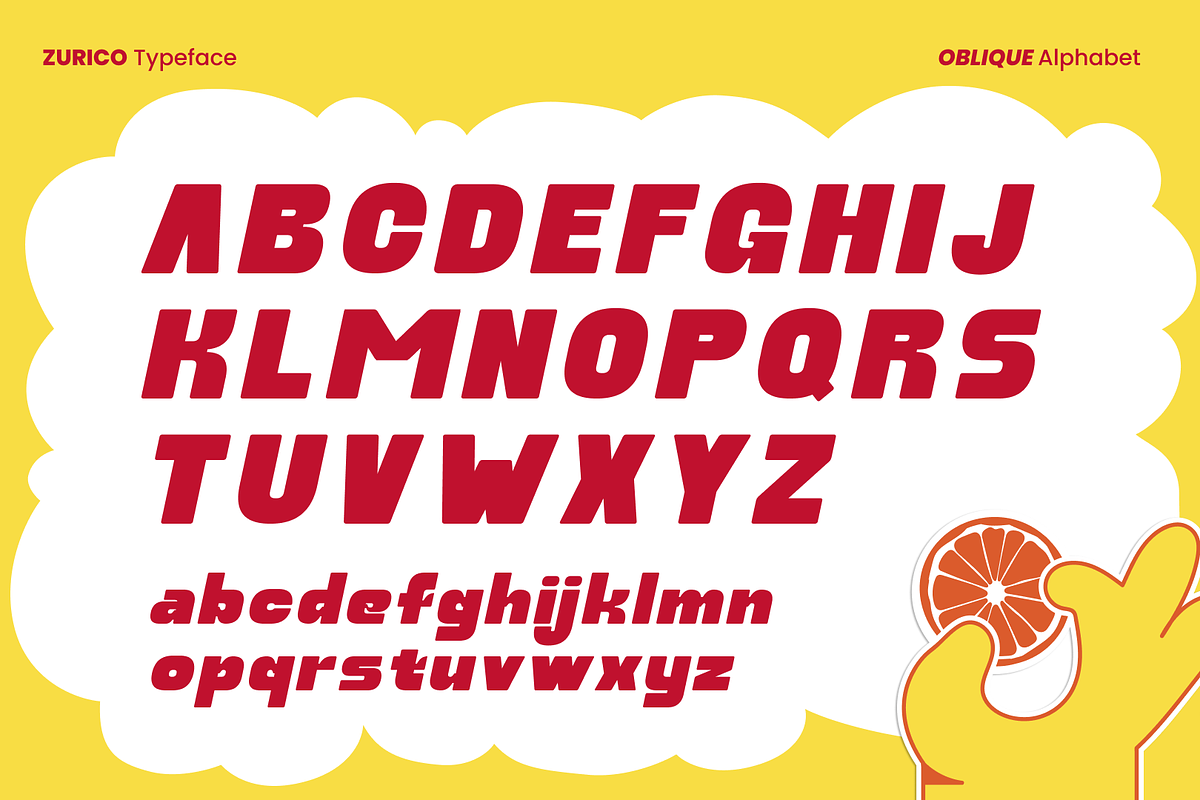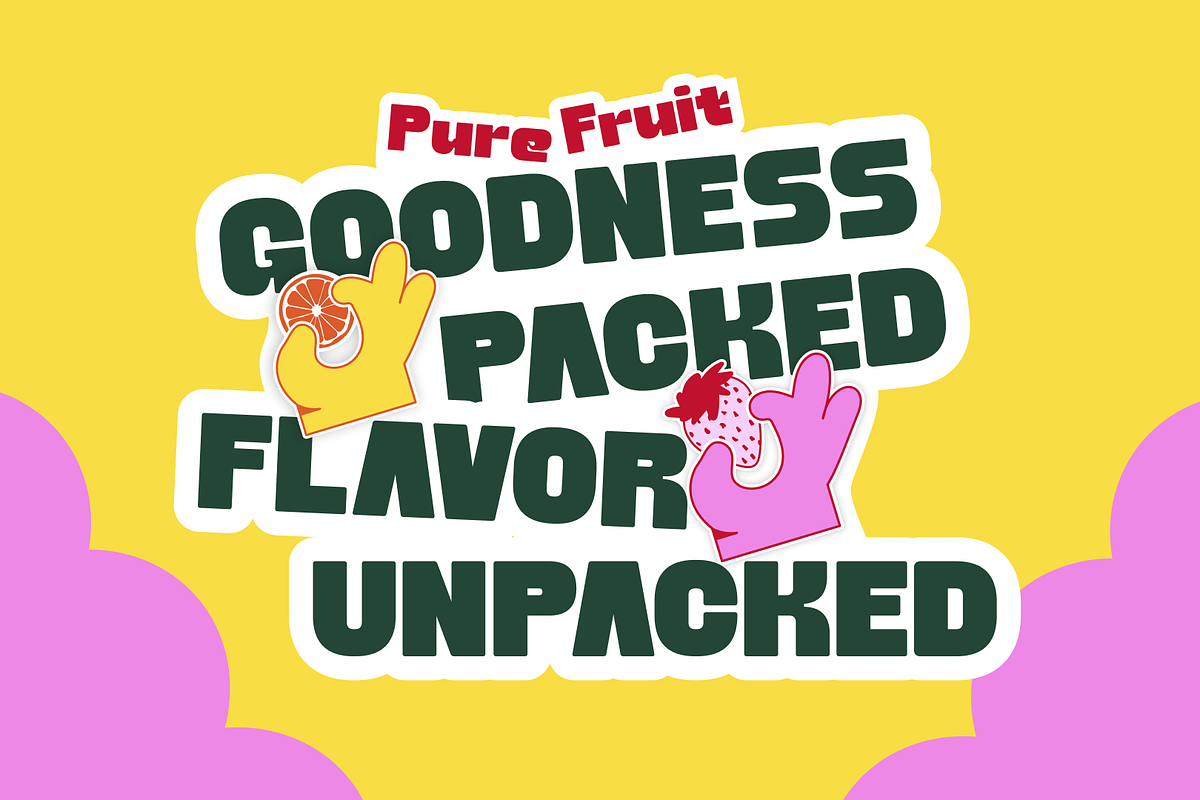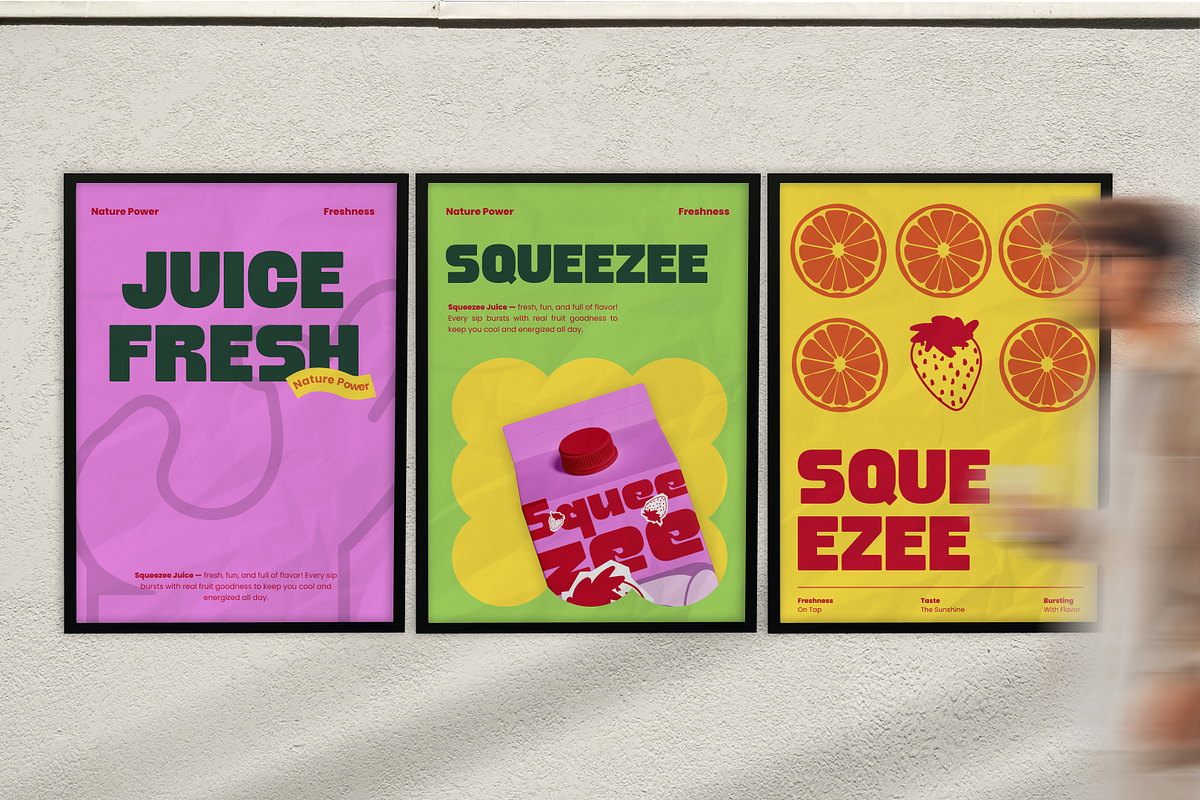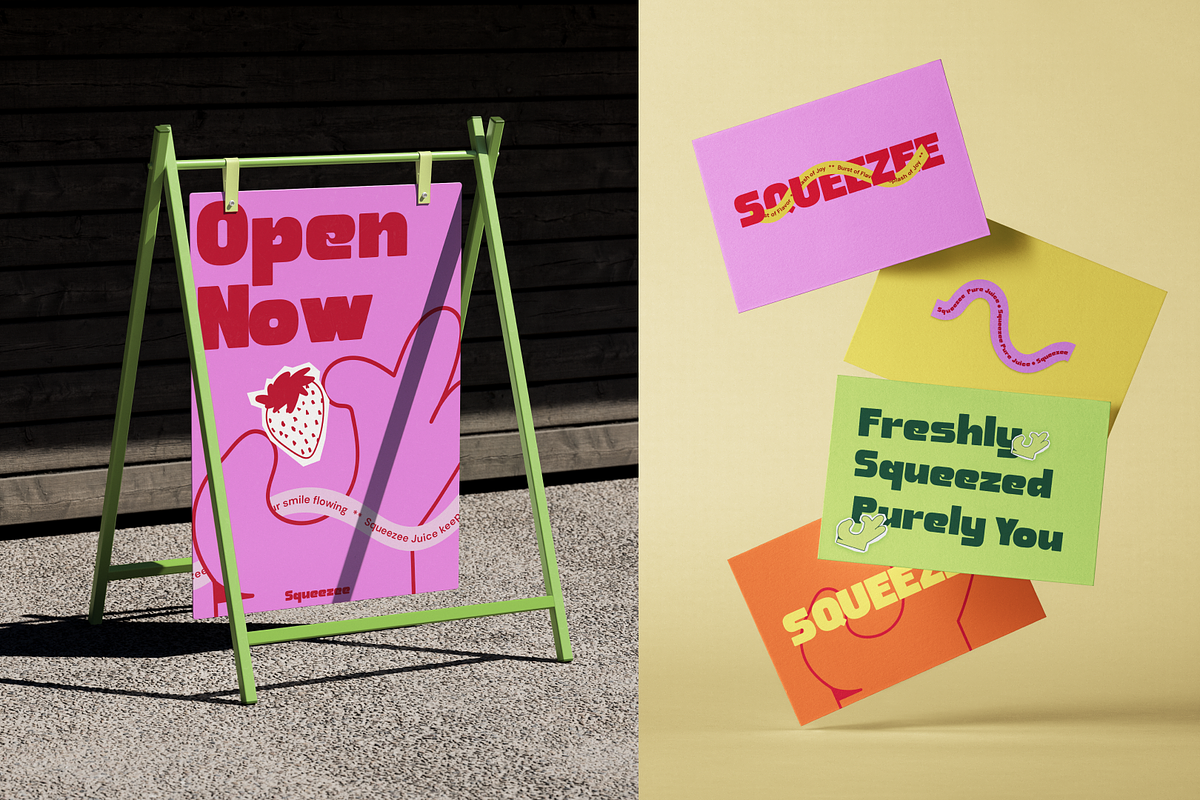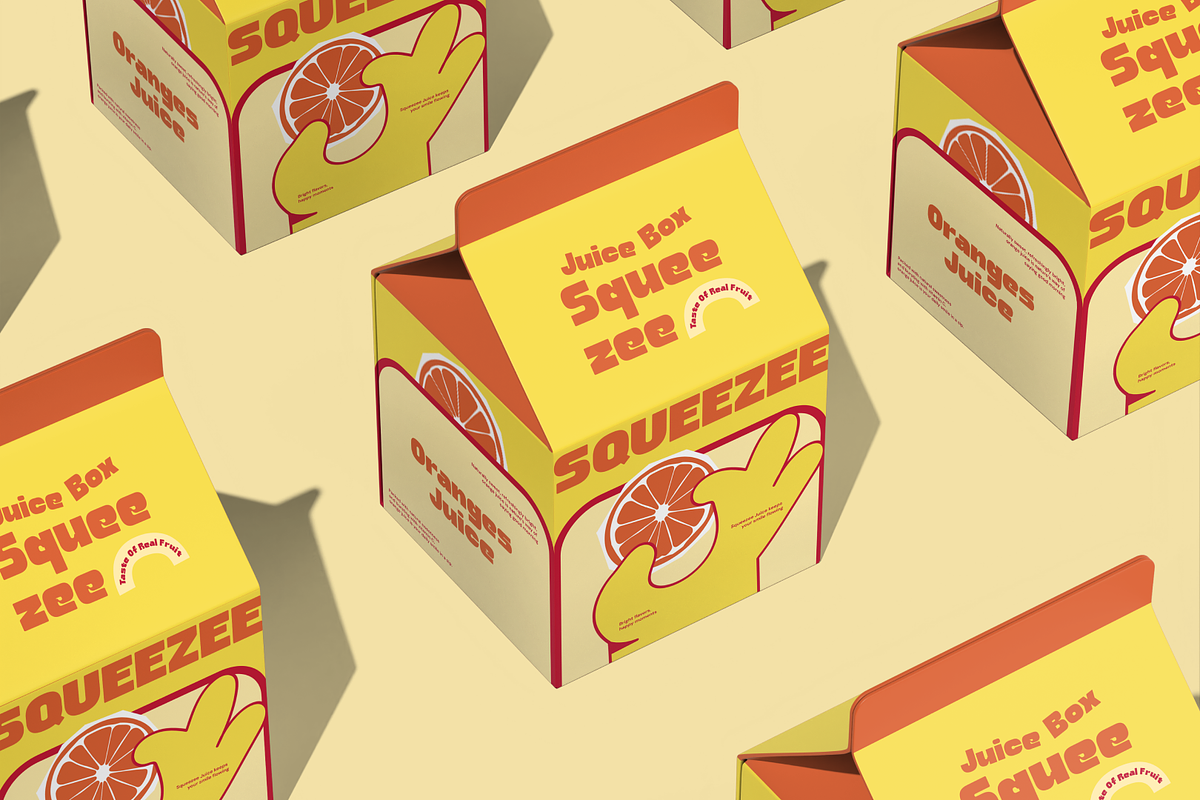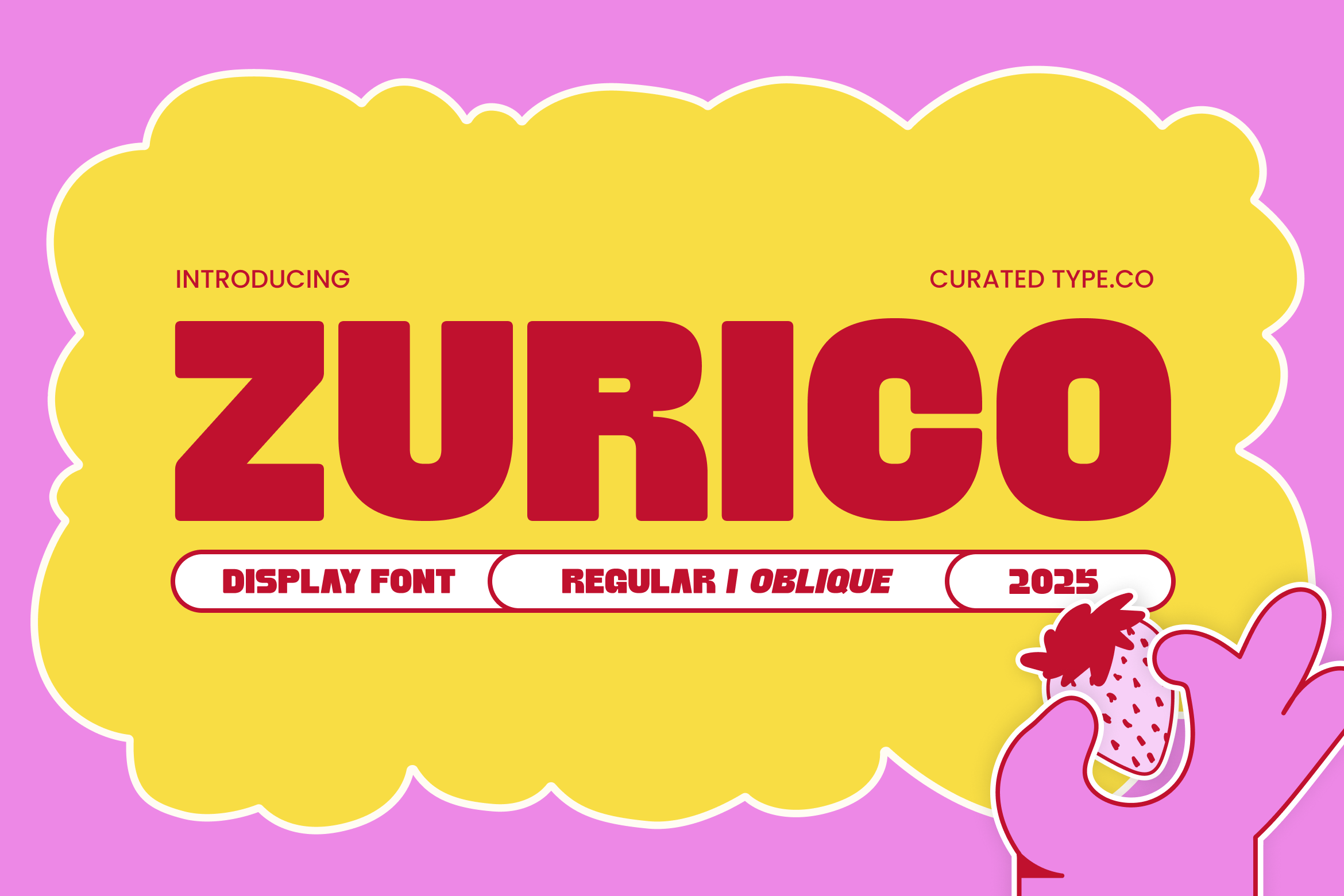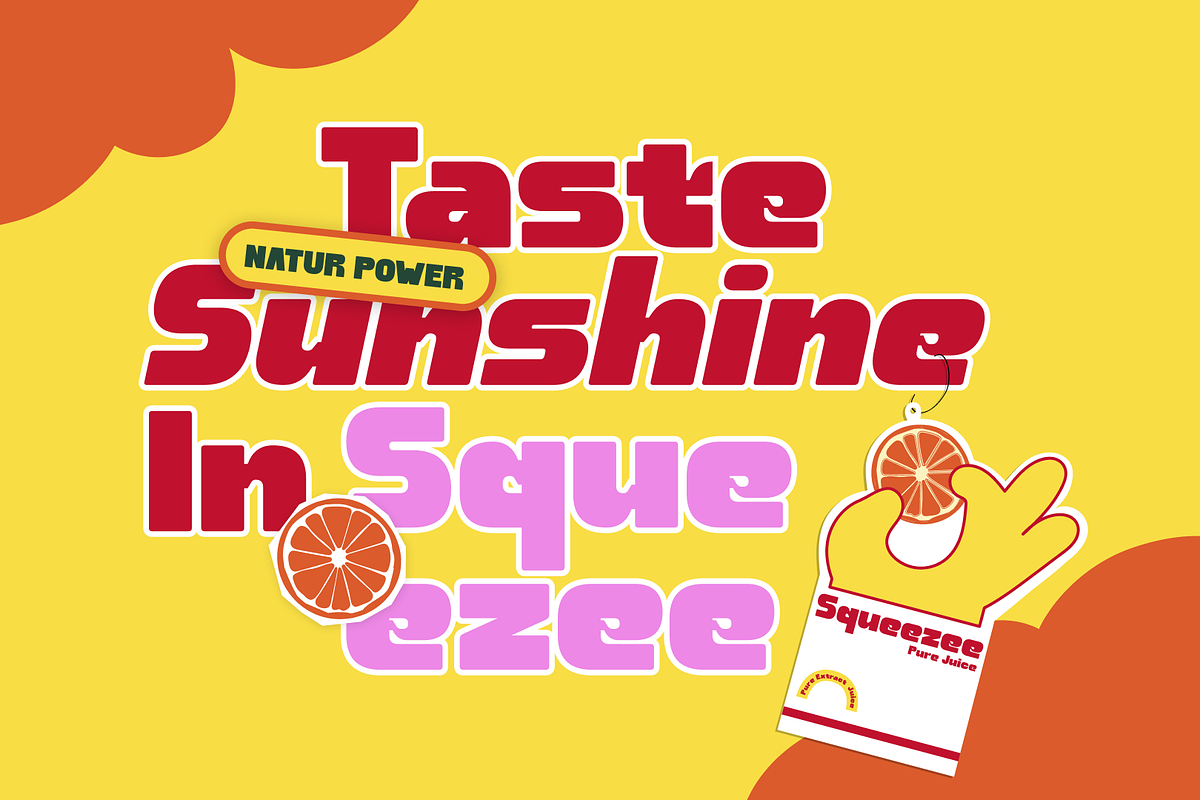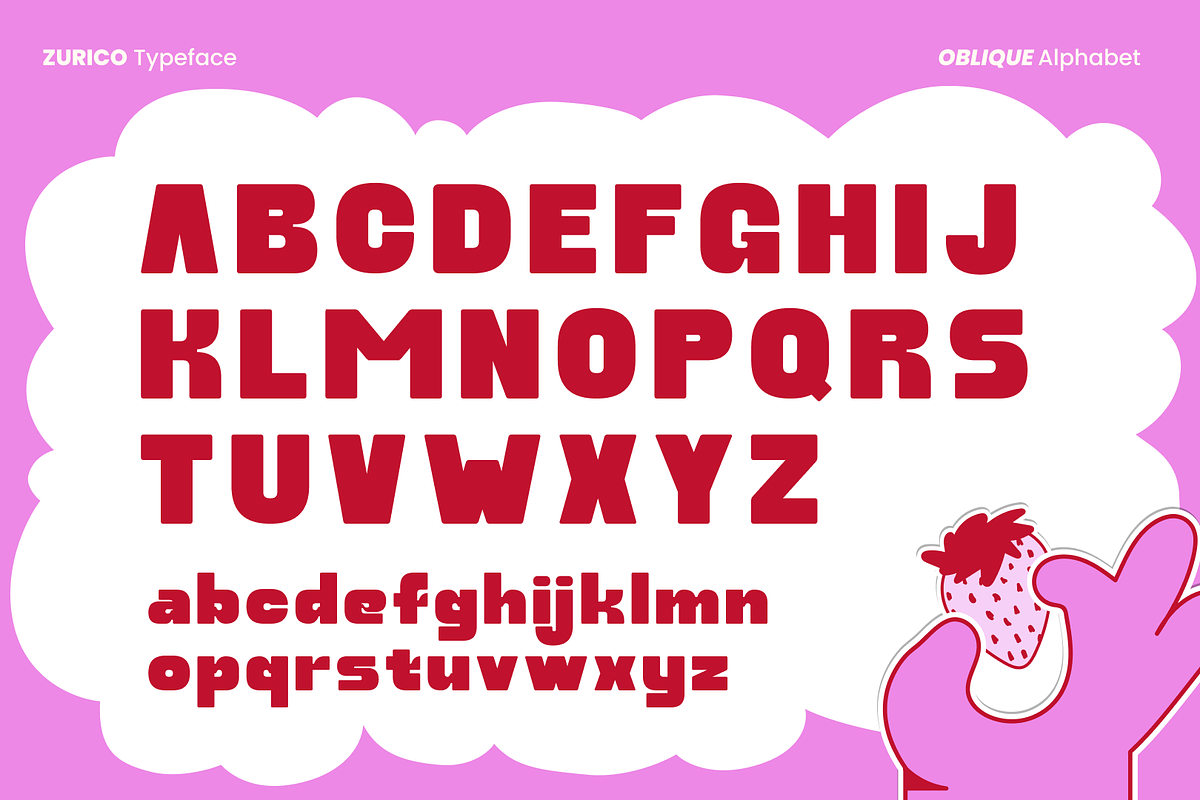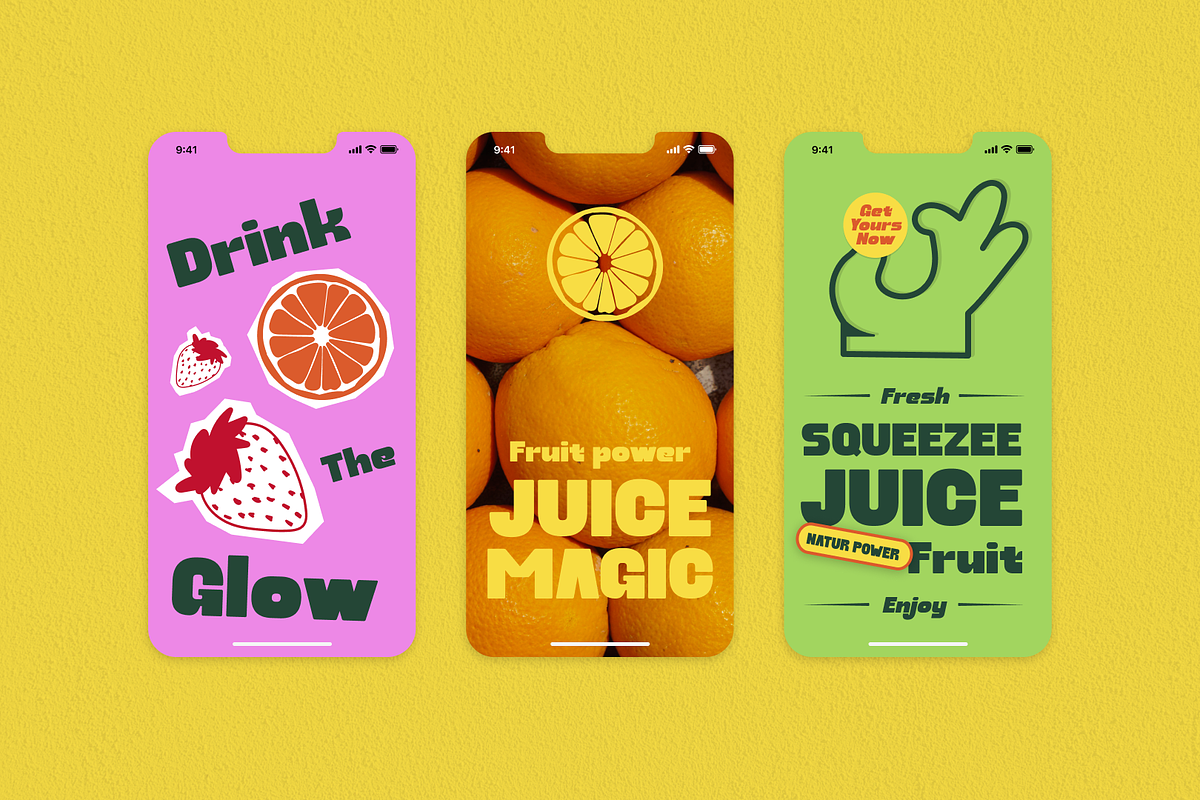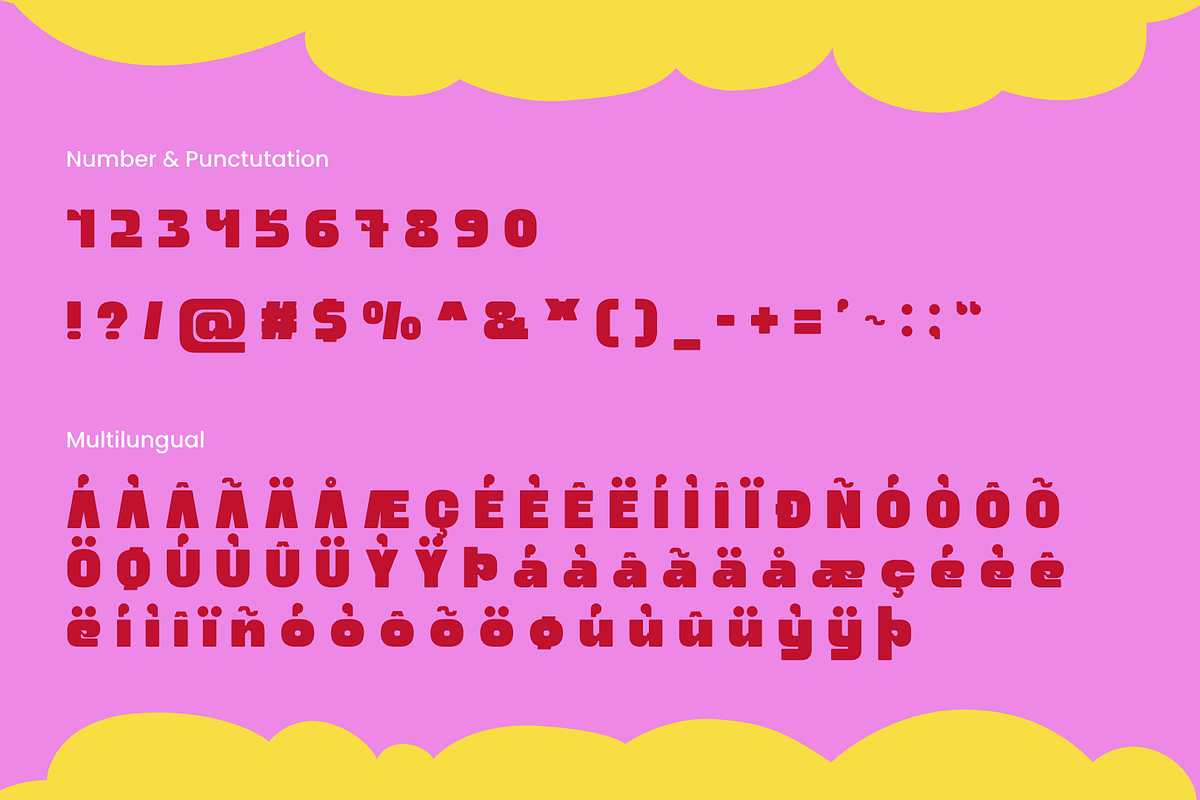
Zurico - Bold Display Font
Zurico is a geometric display font distinguished by its ultra-wide, slanted letterforms that convey a sense of forward motion and boldness. The uppercase letters feature stark, rectangular structures with geometric distortions, while lowercase variants incorporate softer, rounded terminals for enhanced readability. With a high height and generous kerning, the font is designed for impactful headlines and scales seamlessly across digital and print applications. It offers multilingual support with fluidly integrated accented characters and consistent, bold geometry in numbers and punctuation, balancing rigidity with subtle organic flourishes for a contemporary and approachable aesthetic suitable for editorial layouts and branding.